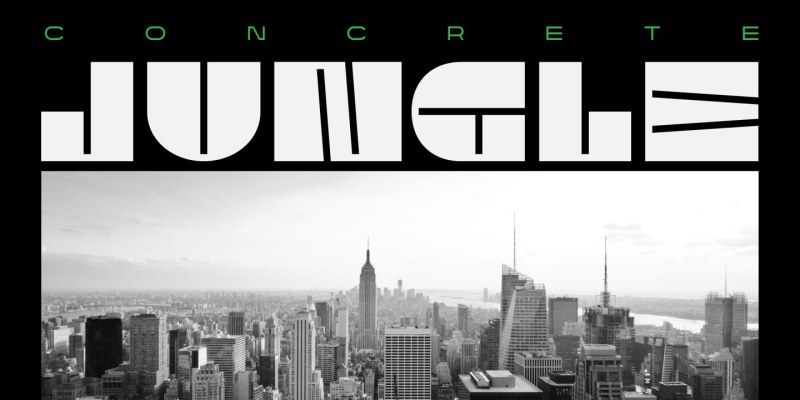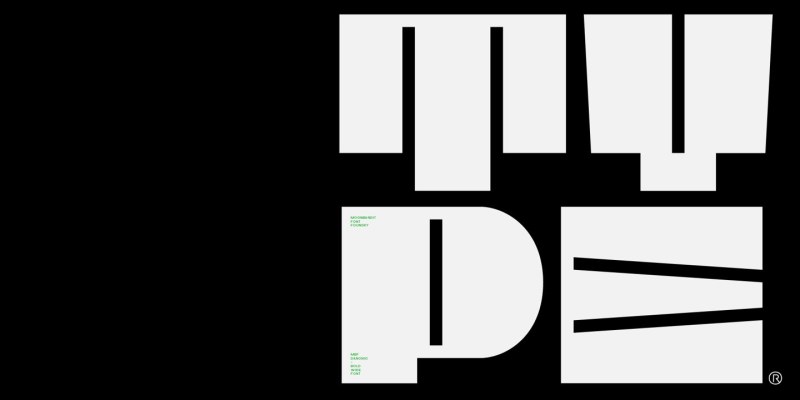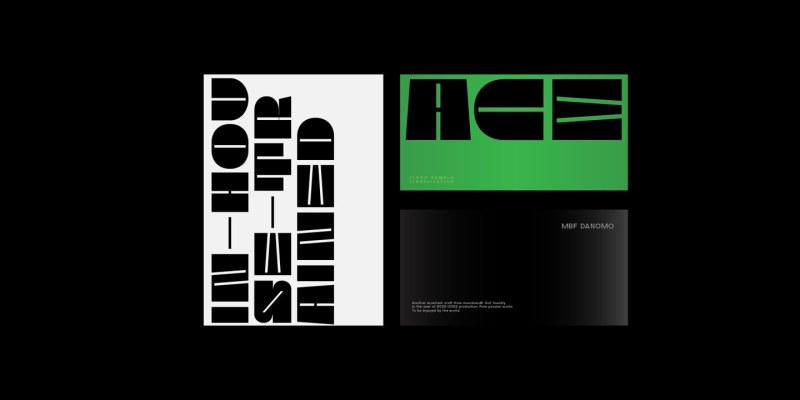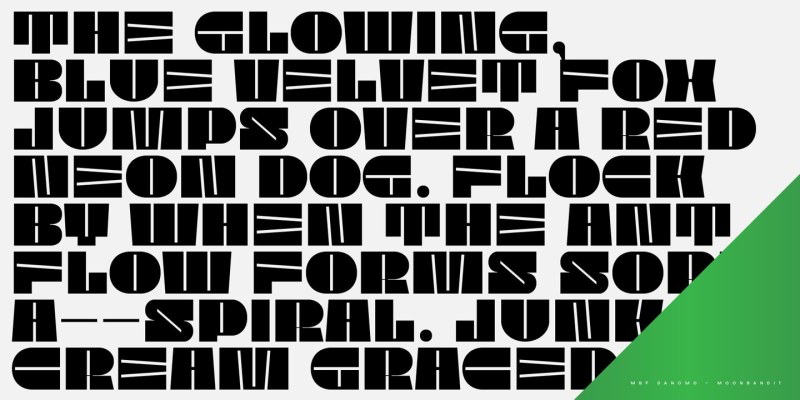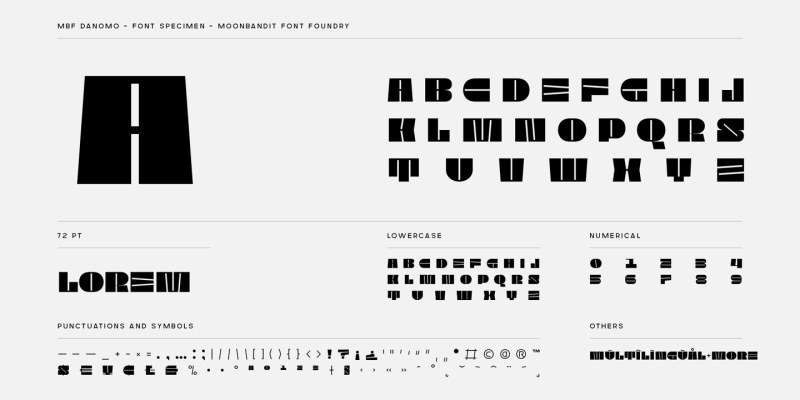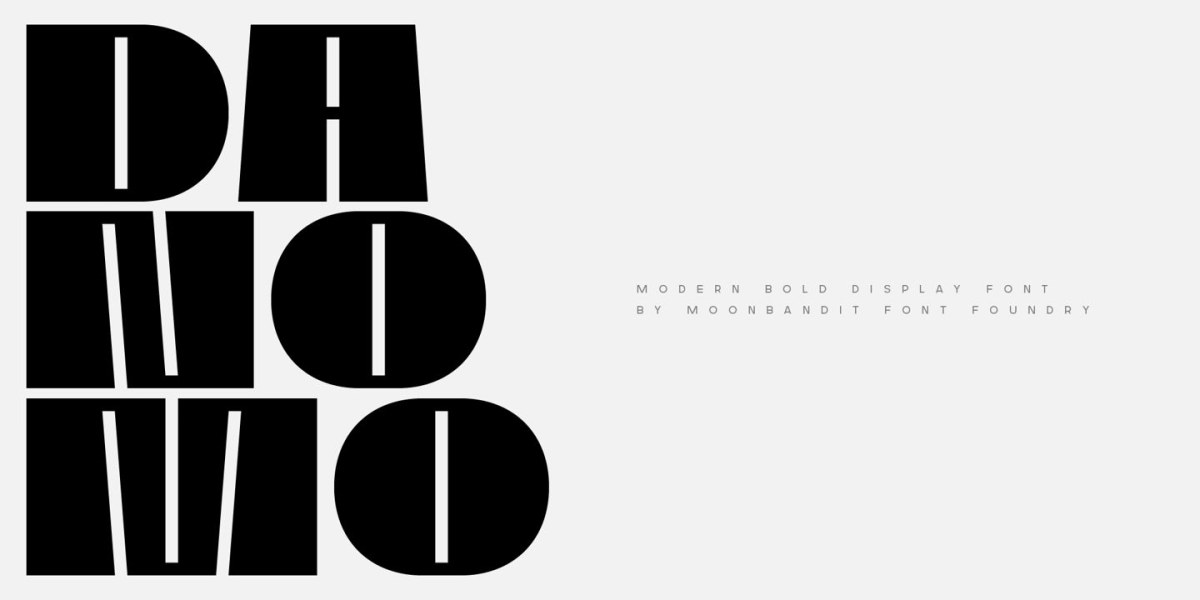
MBF Danomo Font
Where MBF Danomo Font works best
MBF Danomo Font is built for size: event posters, hero headlines and billboard-style layouts.
High contrast display type like MBF Danomo Font reads instantly in thumbnails and motion graphics.
What is MBF Danomo Font good for?
MBF Danomo Font is a Display Fonts typeface tagged Branding, Creative, Display, Display Fonts. It works well for headlines, logos, posters, social media graphics and branding projects that need a distinctive display fonts look.